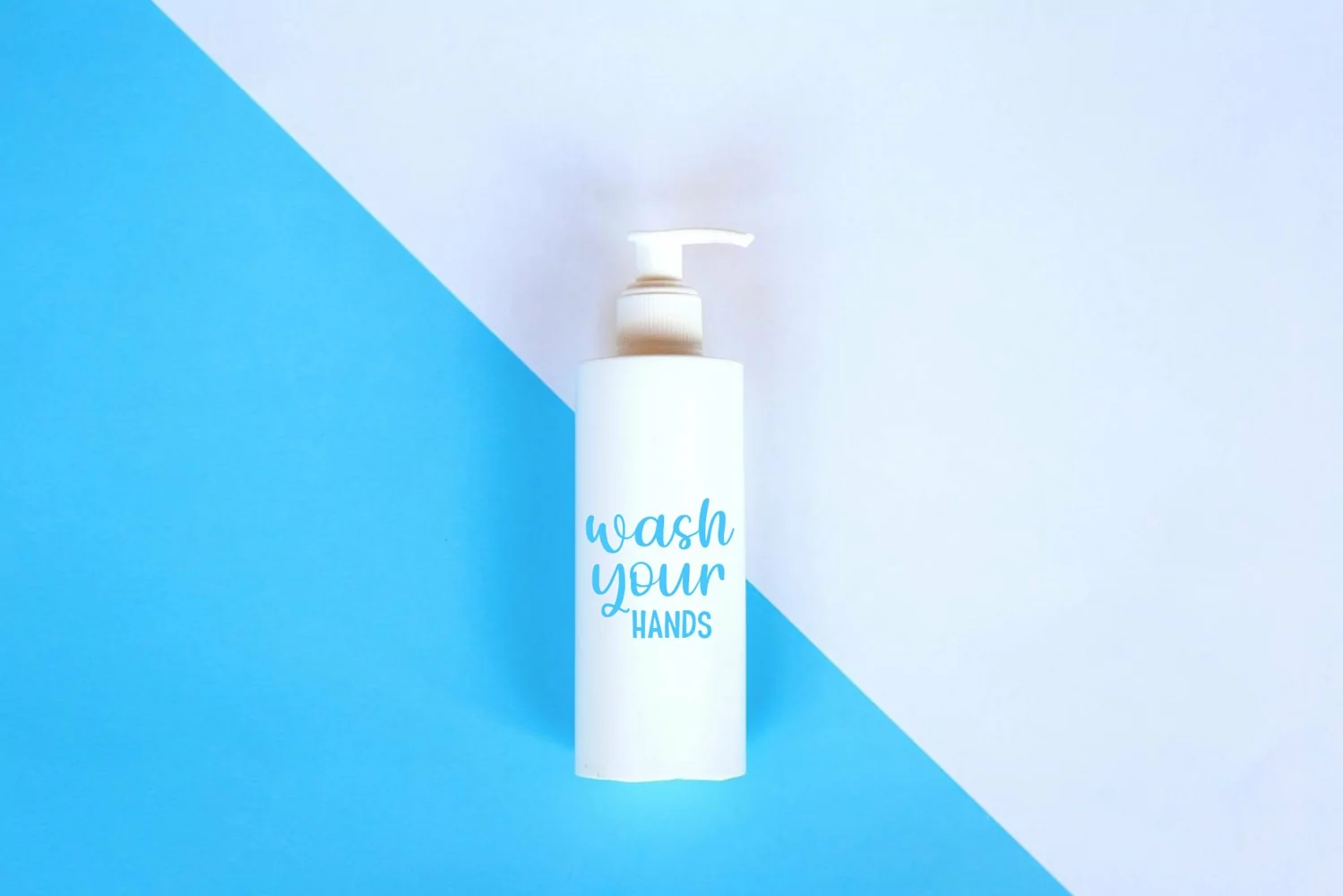
Marriage Script - Handwritten Script Font
Thaytea is a stylish and delicate script font. It is PUA encoded which means you can access all glyphs and swashes with ease! It will look stunning on any poster, flyer or print.